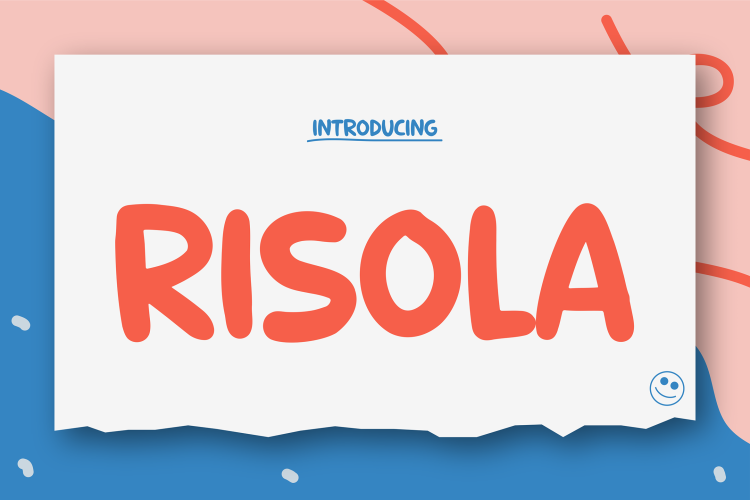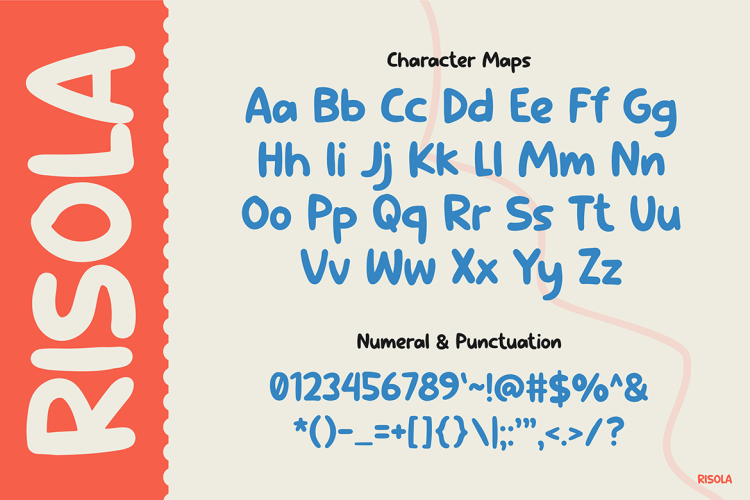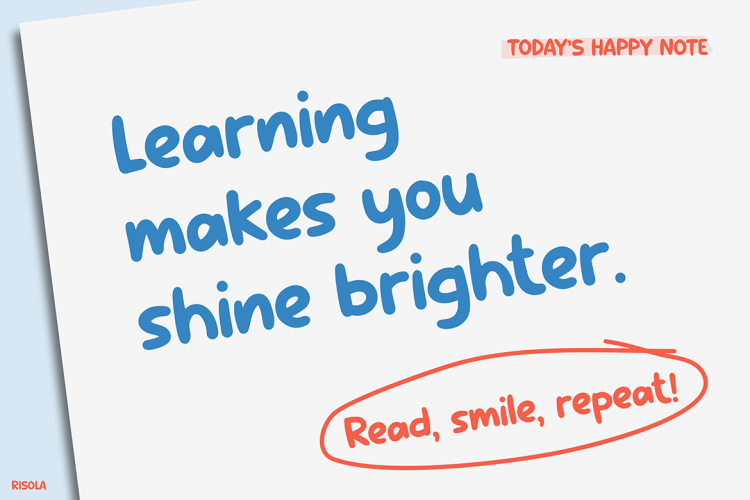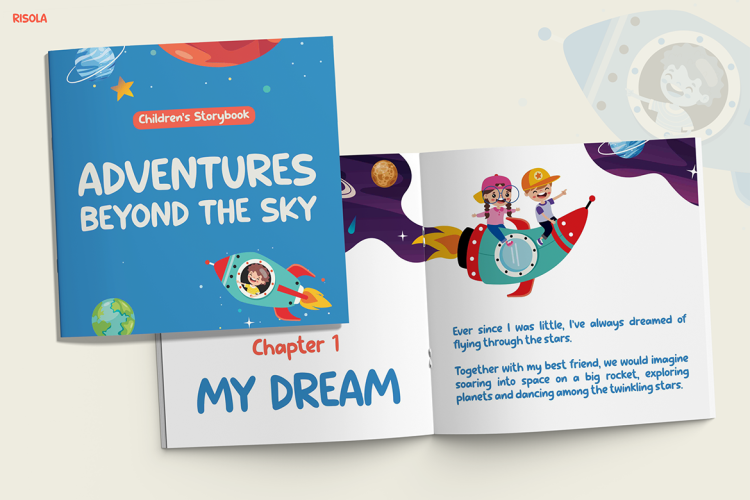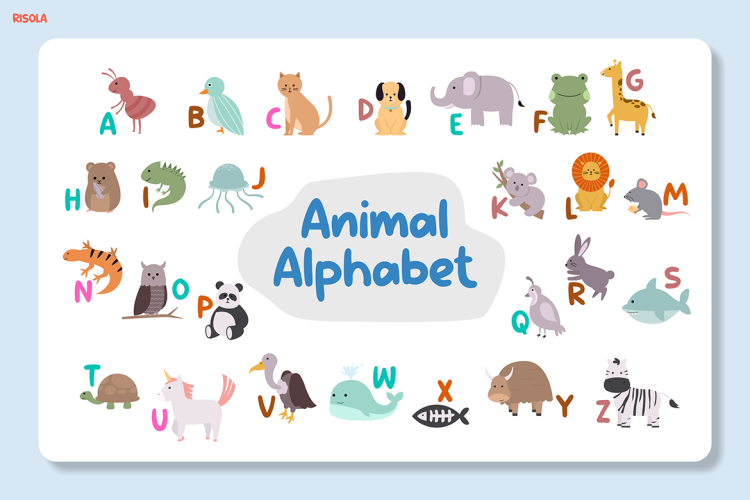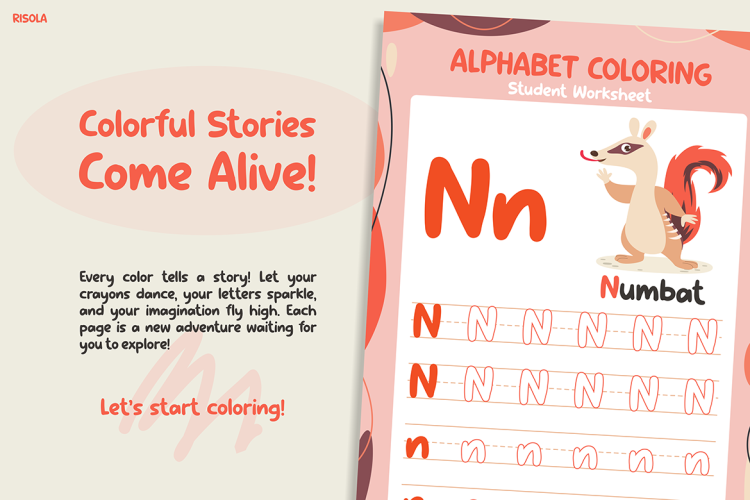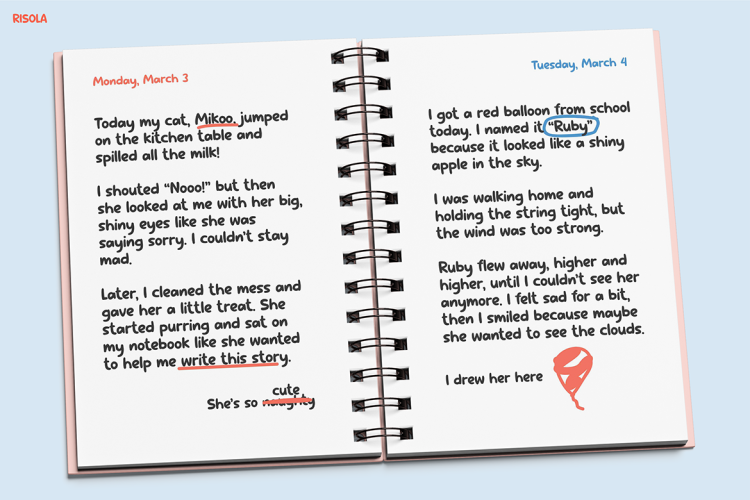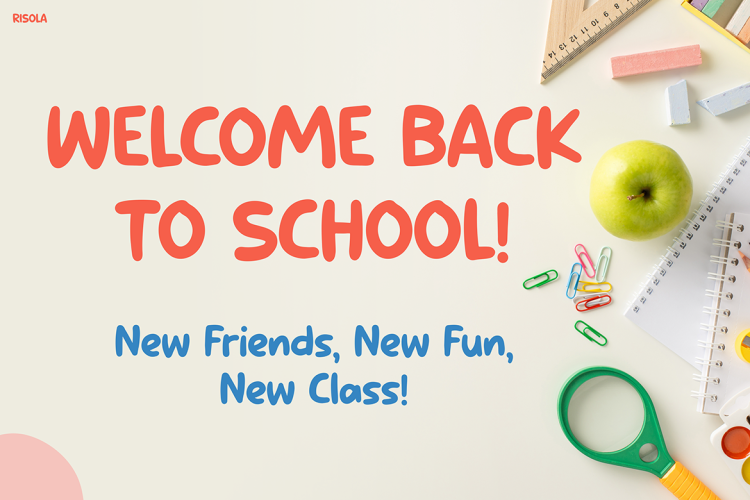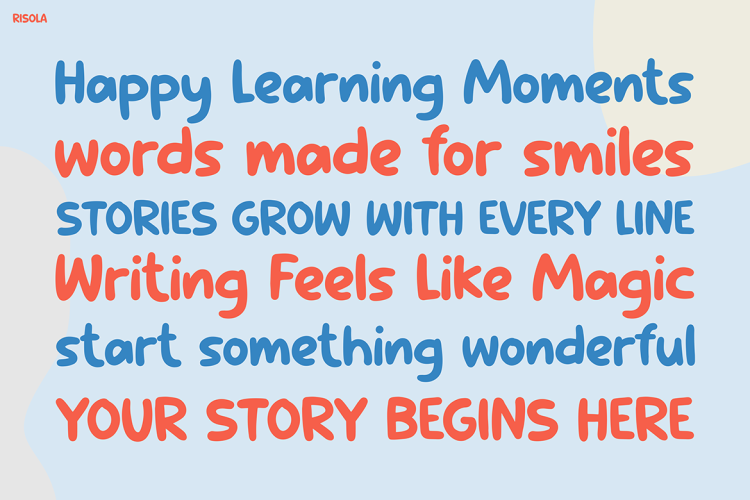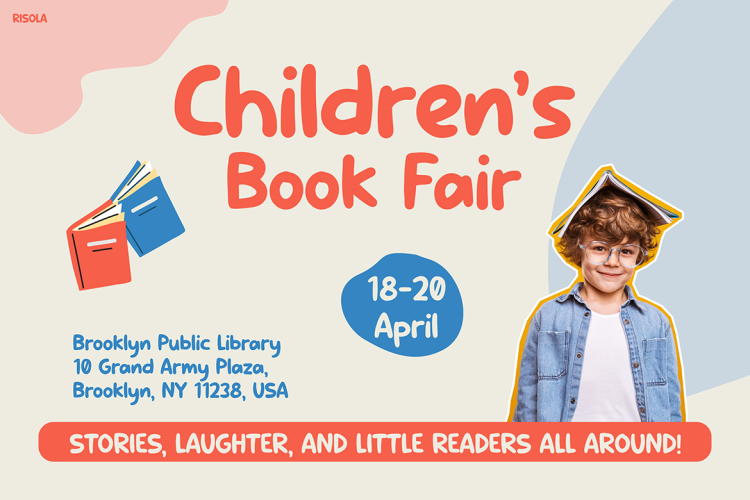
Kids Font Risola โ Fun, Friendly, and Full of Joy!
Kids Font Risola is a cheerful and creative typeface that instantly brings joy to every project. Its rounded letters and soft curves make each word look friendly and full of life. Moreover, it combines the warmth of handwriting with a playful comic style, making it perfect for young readers.
This font not only looks fun but also reads beautifully. The smooth flow and clear spacing improve readability, especially for children learning to read. In addition, its balanced design helps every letter shine with clarity and personality. Whether youโre creating storybooks, posters, or classroom materials, Kids Font Risola makes your text feel bright and engaging.
While many fonts feel formal, Risola stands out with a casual and happy tone. Each stroke feels light and welcoming, encouraging imagination and positivity. Therefore, itโs ideal for projects that aim to inspire, educate, and entertain.
Kids Font Risola is designed for creators who love joyful design. Itโs suitable for teachers, illustrators, authors, and brand designers who want to connect with children and families. In particular, it works perfectly for:
Childrenโs books and story covers that spark imagination and excitement.
Educational materials and worksheets that make learning more interactive and fun.
Posters, flashcards, and classroom boards that stand out with bright, bold letters.
Toy packaging, logos, and kid-friendly branding that need warmth and personality.
Digital designs, social media, and YouTube graphics that shine with energy and joy.
Furthermore, every letter of Risola expresses creativity and care. It helps your message sound friendly, confident, and inspiring. As a result, your designs will instantly feel more alive and appealing.
Bring Your Words to Life!
Add happiness and color to your work with Kids Font Risola. Its bouncy curves and charming flow make every design more delightful. So, whether youโre teaching, storytelling, or designing for kids, this font helps your words connect with warmth and playfulness. Start creating joyful memoriesโbecause with Risola, every line smiles back!